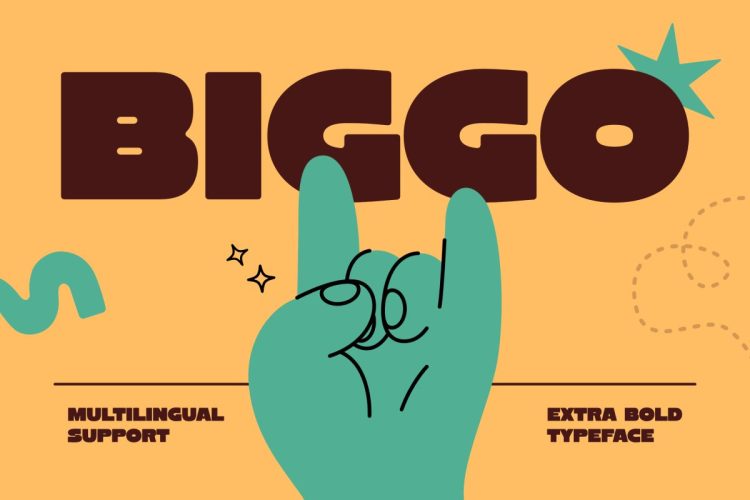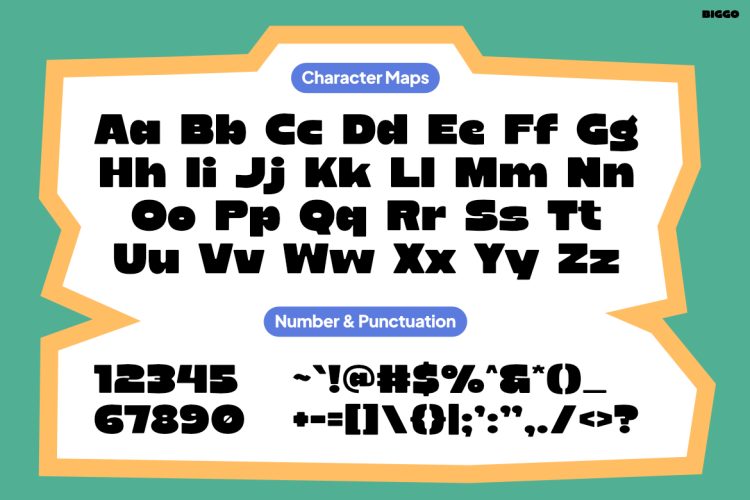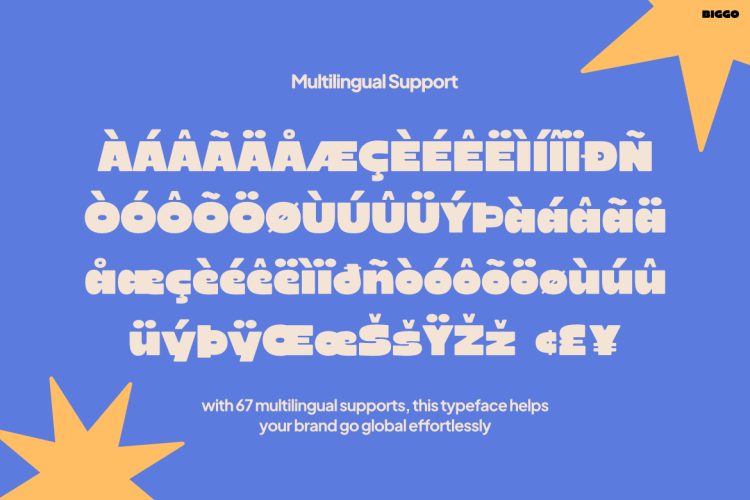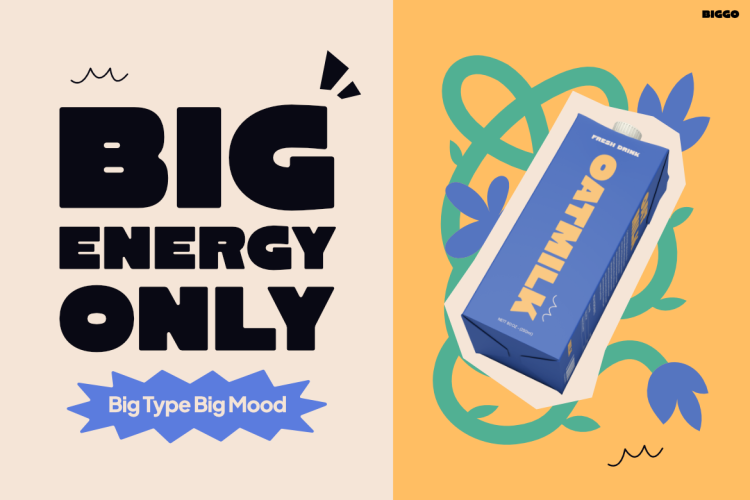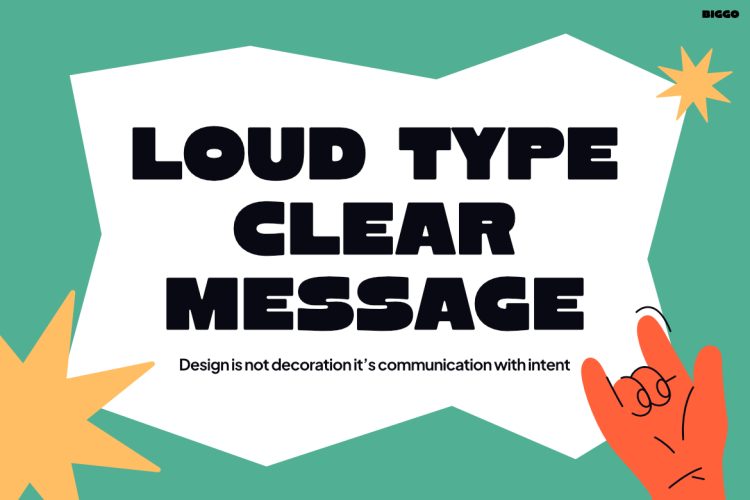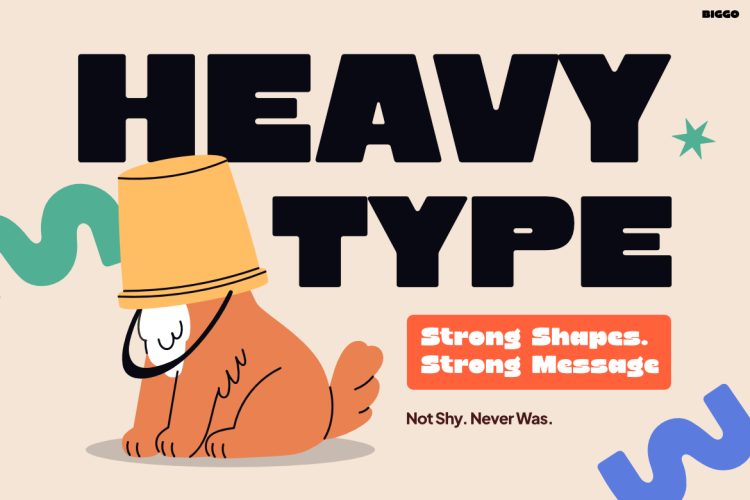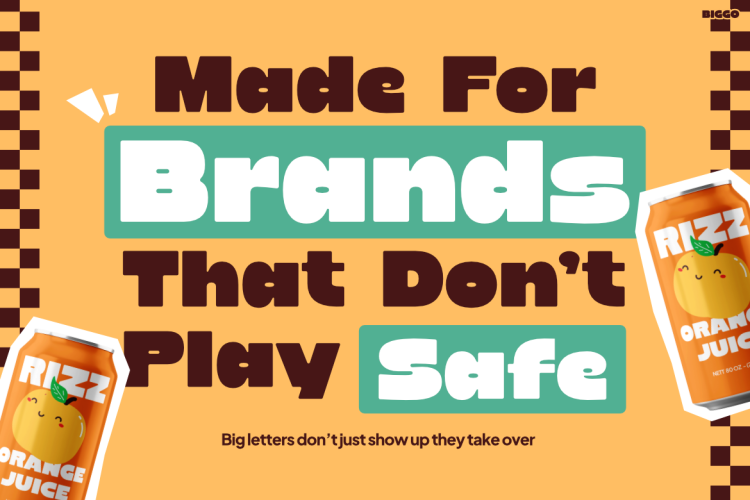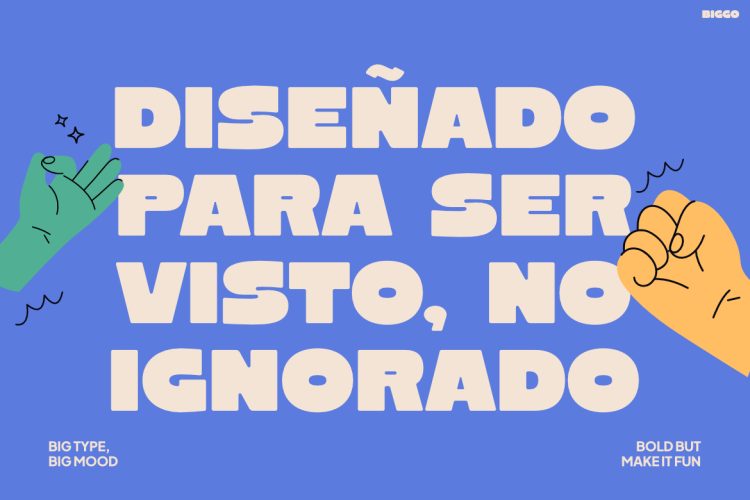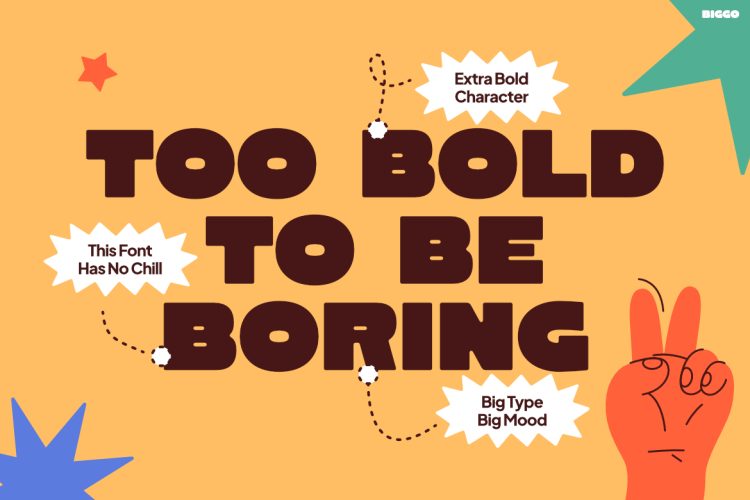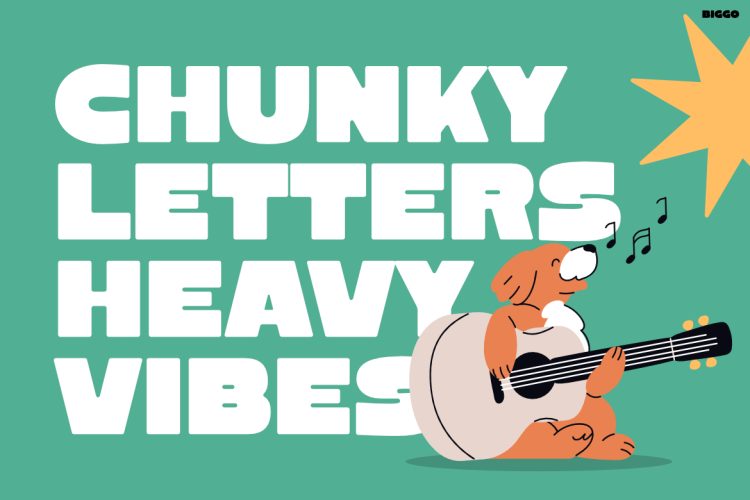
Biggo โ Bold Chunky Display Font with Playful Power
Instagram Font Biggo is a striking, chunky display typeface that instantly grabs attention with its bold shapes, soft curves, and playful personality. Moreover, it combines a retro-modern aesthetic with thick, rounded letterforms, making it both visually strong and highly approachable. In addition, its heavy weight enhances readability, so your message stays clear even in loud, expressive layouts. As a result, Biggo works perfectly for eye-catching headlines, vibrant posters, and standout social media visuals.
Biggo is designed for creators who want to make a bold statement while keeping a friendly tone. Furthermore, it includes multilingual support for 67 languages, allowing you to reach a wider global audience with ease. Not only that, but its balanced spacing and consistent thickness also ensure clean and professional results across different design formats. Therefore, whether you’re working on branding, packaging, or digital content, Biggo helps maintain a strong and memorable visual identity.
Instagram Font Biggo is ideal for graphic designers, content creators, branding agencies, and social media marketers. Additionally, it performs exceptionally well in Instagram posts, logos, posters, and kids-themed designs. Likewise, it suits brands that want to appear energetic, modern, and approachable. In other words, if your goal is to stand out while staying friendly, Biggo is the perfect match.